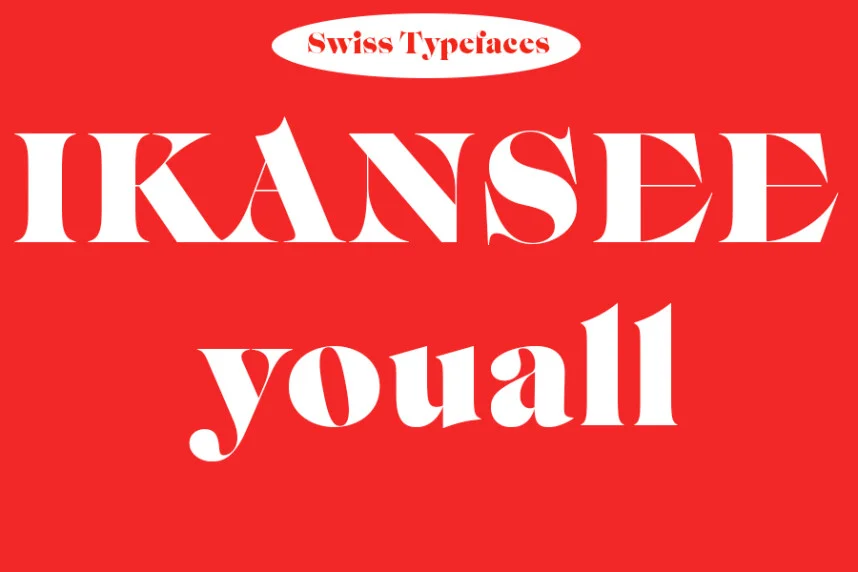
Riviera Font Family is a serif type system developed to solve readability and consistency problems in editorial design, branding, and printed materials. Designers often need a serif family that works across headings, body text, and logos without changing fonts between print and digital layouts.
Riviera is built with traditional serif letterforms, balanced stroke contrast, and clear vertical stress. The family usually includes multiple weights and styles, which helps establish hierarchy in books, magazines, and brand systems. Open counters and steady spacing improve legibility at smaller sizes, while the serif details add structure to longer reading content.